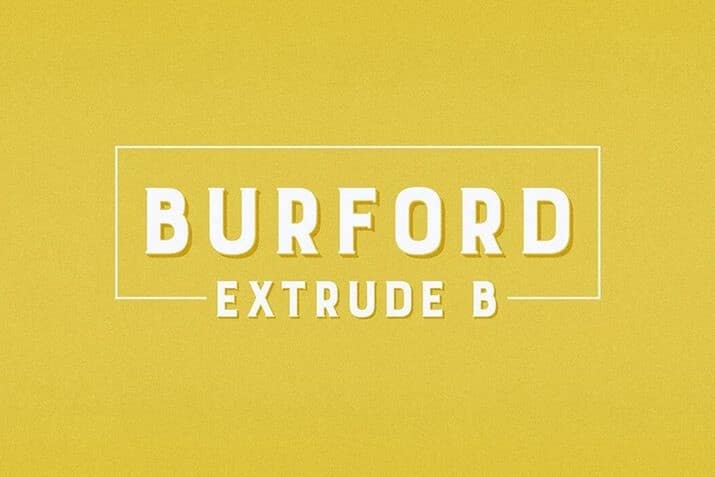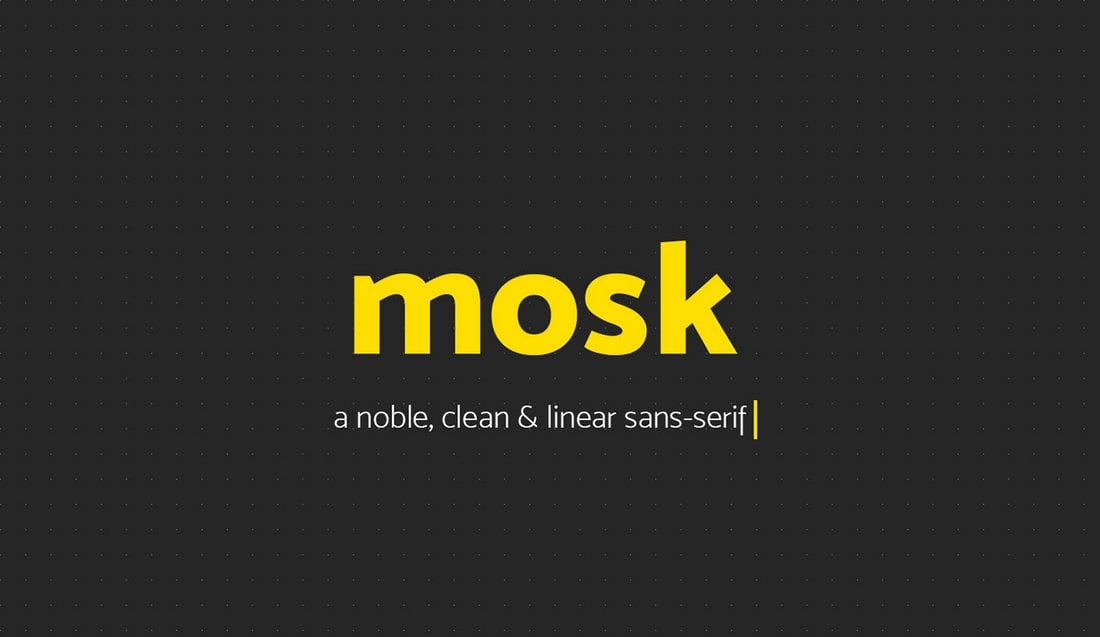
When it comes to designing posters and banners, there’s one thing that matters the most: the font. A poster without a great, attention-grabbing title is simply not an effective poster.
A great poster font has the power to turn even the most straightforward layout into a compelling design. As Irene Etzkorn once said, “There is no such thing as a boring project. There are only boring executions.”
If you’re still searching for that perfect poster font, you’re in luck. We found a set of fantastic poster fonts that’ll be perfect for any poster design. They’re big, bold, and creative enough to turn heads!
We’re also sharing a set of tips for choosing a poster font to help guide you in the right direction.
Mike Sans is a modern display font that uses a unique square design for its characters but with rounded edges.
This font is perfect for designing many different types of posters, website hero scenes, blog post titles, and much more.
Why This Is A Top Pick
In addition to its attractive bold design, what makes this font more useful is that it comes in multiple font weights that range from thin and extra-light to extra-bold and heavy. This will allow you to mix and match different font weights to create unique poster titles and even subheaders.
Flix is a modern display font featuring a bold design. It comes in both regular and outline typeface designs and you can use it to design all titles for creative and modern posters.
Bright is a bid bold script font you can use to design modern posters, banners, website headers, and much more. The font is available in 3 different styles featuring clean, brush, and layered designs.
Hit and Run is a fun poster font that truly stands out with its bold design. The font is perfect for both print and digital designs, including websites, social media posts, posters, greeting cards, and more.
Lucita is a stylish and quirky poster font you can use with your modern and material design projects. The font is available in OTF format with both uppercase and lowercase letters and includes multilingual support.
Forests is a unique layered font you can use to design titles and headers that truly stands out from the crowd. The font is available in 3 layered and allows you to use the font with either 3, 2, or single layers and also customize the colors to your preference.
Peace Sans is a bold and free display font you can use to design titles that stands out from the crowd. Designed by a professional, this font features a geometrically-accurate character design and comes with multilingual support and glyphs as well. Unlike most other free fonts, you can use this font freely with your personal and commercial projects.
This is a very creative family of fonts that feature a unique hand-drawn letter design. The font comes in 6 different styles featuring bold, thin, and italics. It also includes uppercase and lowercase letters as well as alternates, ligatures, multilingual support, and more.
Kage is an elegant serif font you can use to design big headings and poster titles for modern design projects. It will especially go along nicely with fashion and lifestyle designs, including for magazines. The font comes in 11 different weights.
If you’re looking for a font to craft big titles and headings for luxury brand design, this font will come in handy. It features a subtle luxurious letter design that will add a certain elegance to your logo, title, and poster designs. The font includes 9 weights and 380 glyphs.
Argon is a unique poster font that comes with a stylish outline design. The font is perfect for making luxury and fashion-related poster designs. It’s free to use with your personal projects.
Exon is the type of font that you normally see on posters and flyers for luxury brands. It has an elegant design featuring a clean-cut look. The font comes in two styles including a regular and outline font.
The retro-inspired sci-fi design of this font makes it a perfect fit for technology and modern poster designs. With the right combination of color and shadows, you can create an amazing poster title using this futuristic font.
This font not only comes with a 3D look but it also lets you choose from solid and rough font styles as well. The vintage-themed design adds a unique look to this font that will surely make your posters stand out from the crowd.
Working on a casual poster design for a summer promotion? Or a poster for a beach party? Then this font will come in handy. It features a set of hand-drawn letters with multilingual support.
A creative and fun display font you can use for free with your personal projects. This font will fit in perfectly with casual and entertainment-related poster designs, especially for children.
Rogue is a stylish decorative font that comes with a tall and narrow lettering design. It’s ideal for all kinds of creative and professional poster designs. Don’t worry, the font comes without the texture shown in the preview.